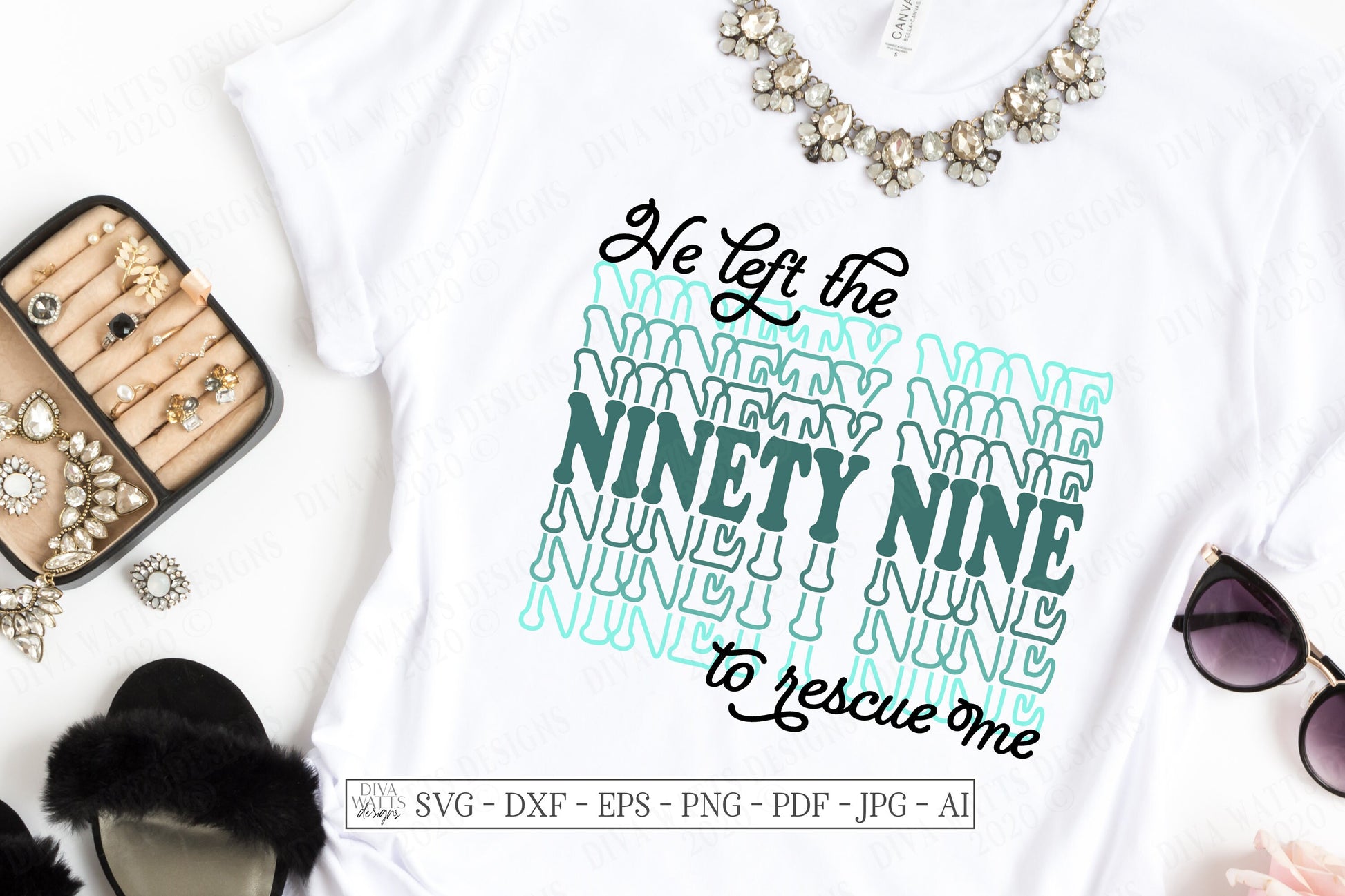
He left the 99 (ninety nine) to rescue me
Christian design
This design is in a stacked format which is perfect for shirts, totes, signs and more!
SVG can be ungrouped and each line can be cut in multiple colors if desired.